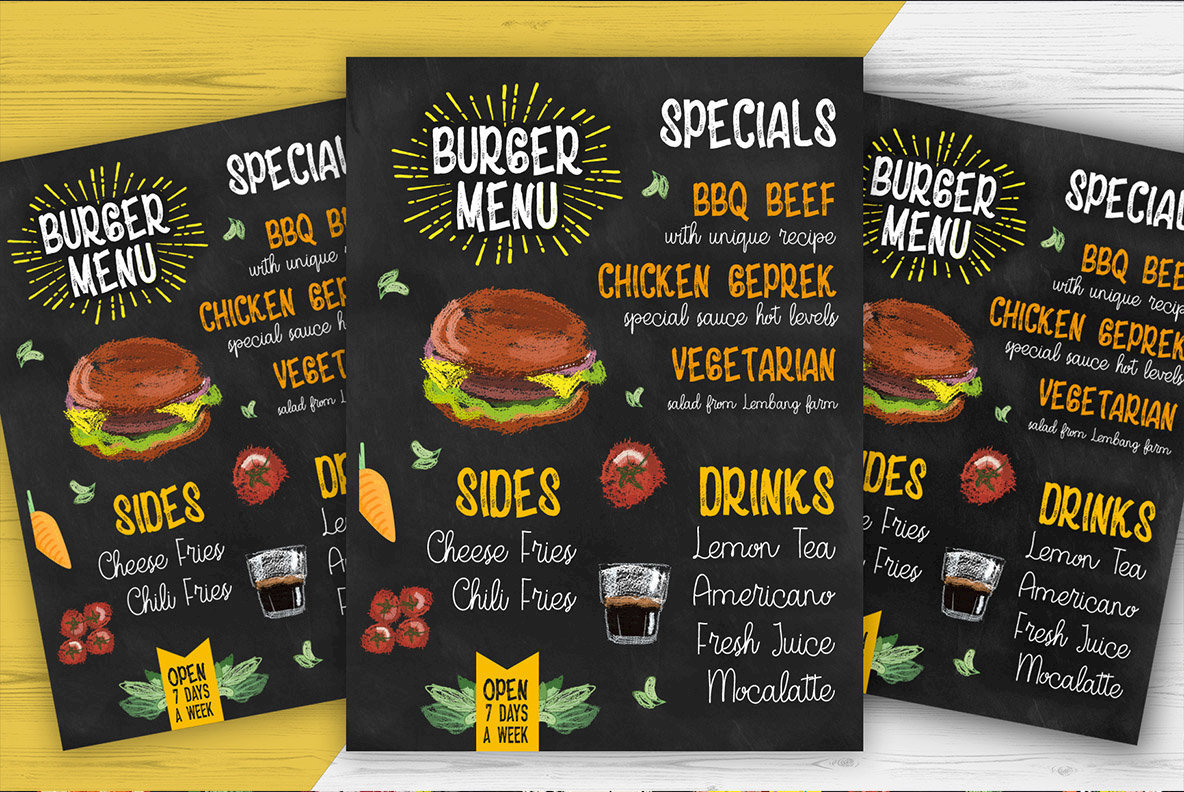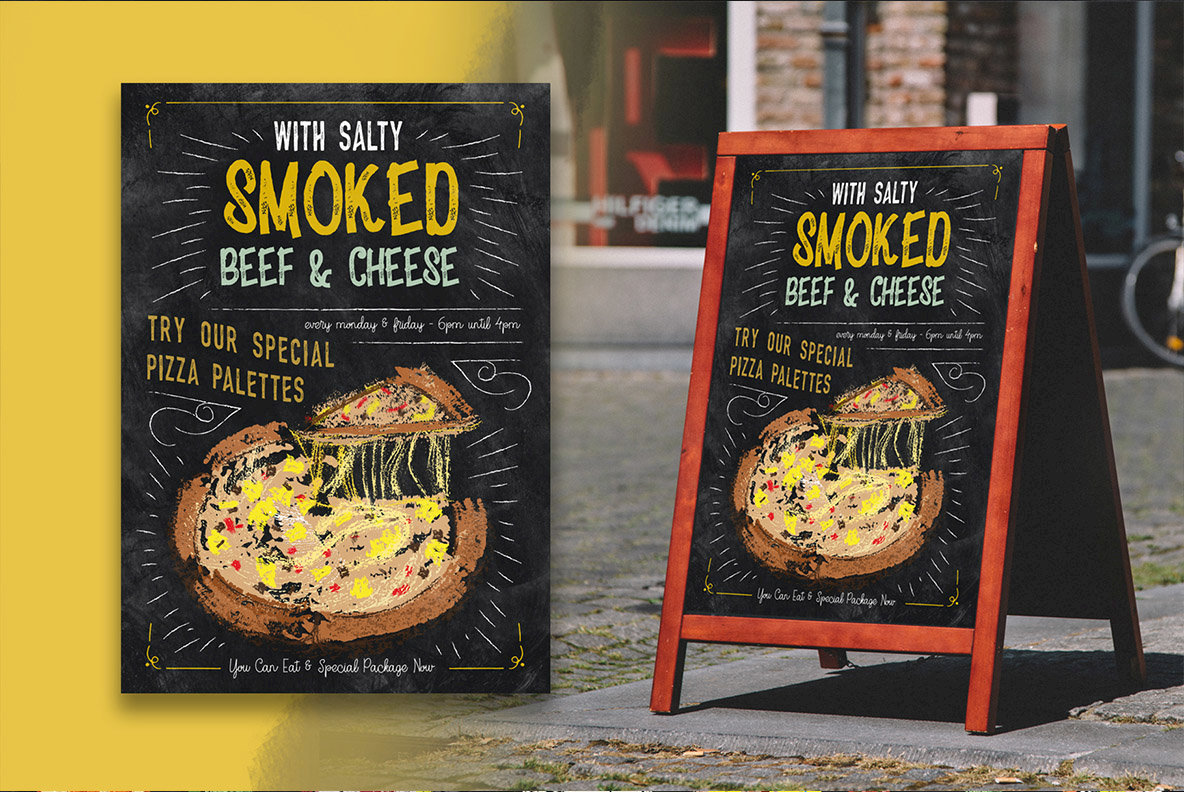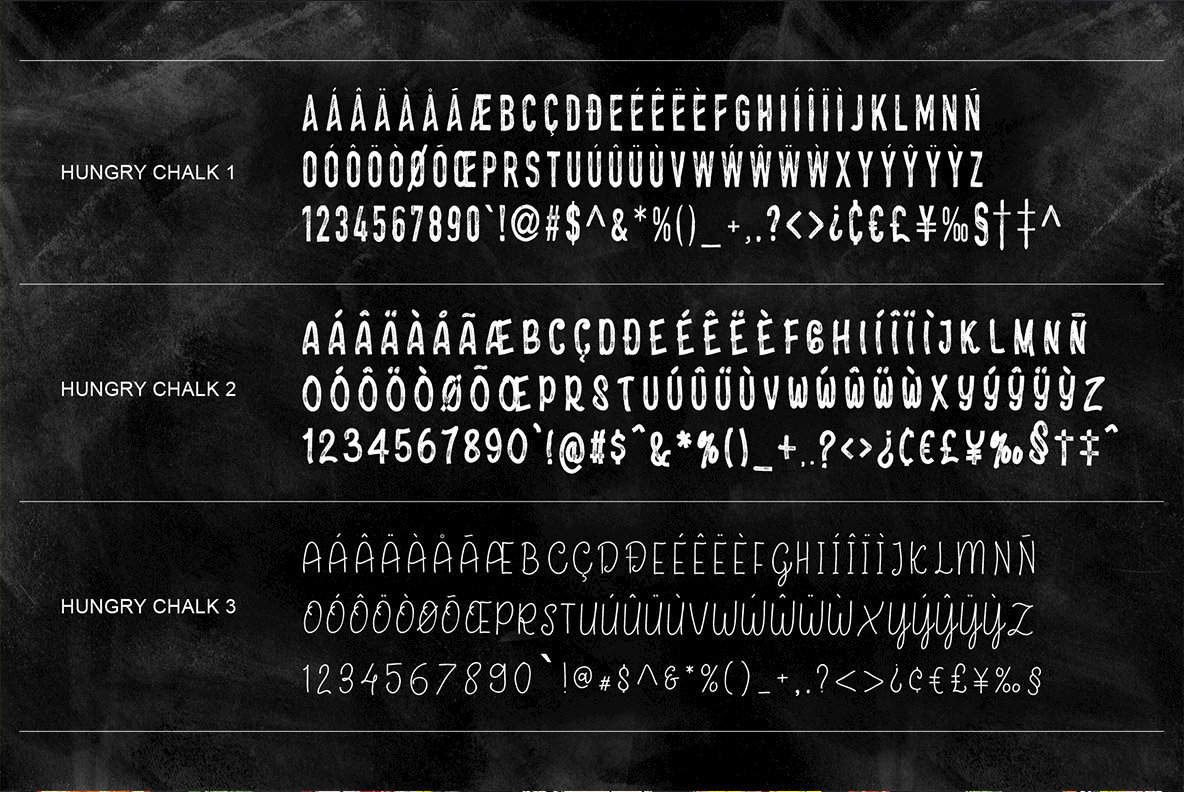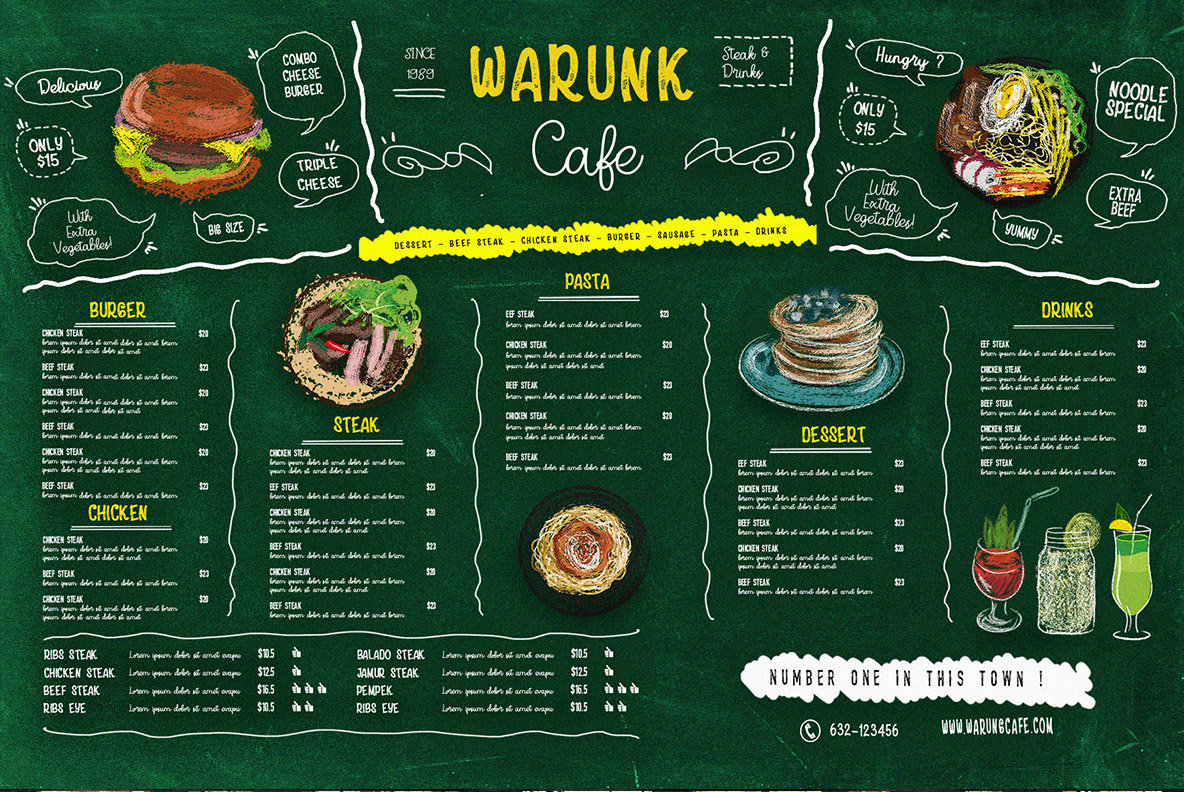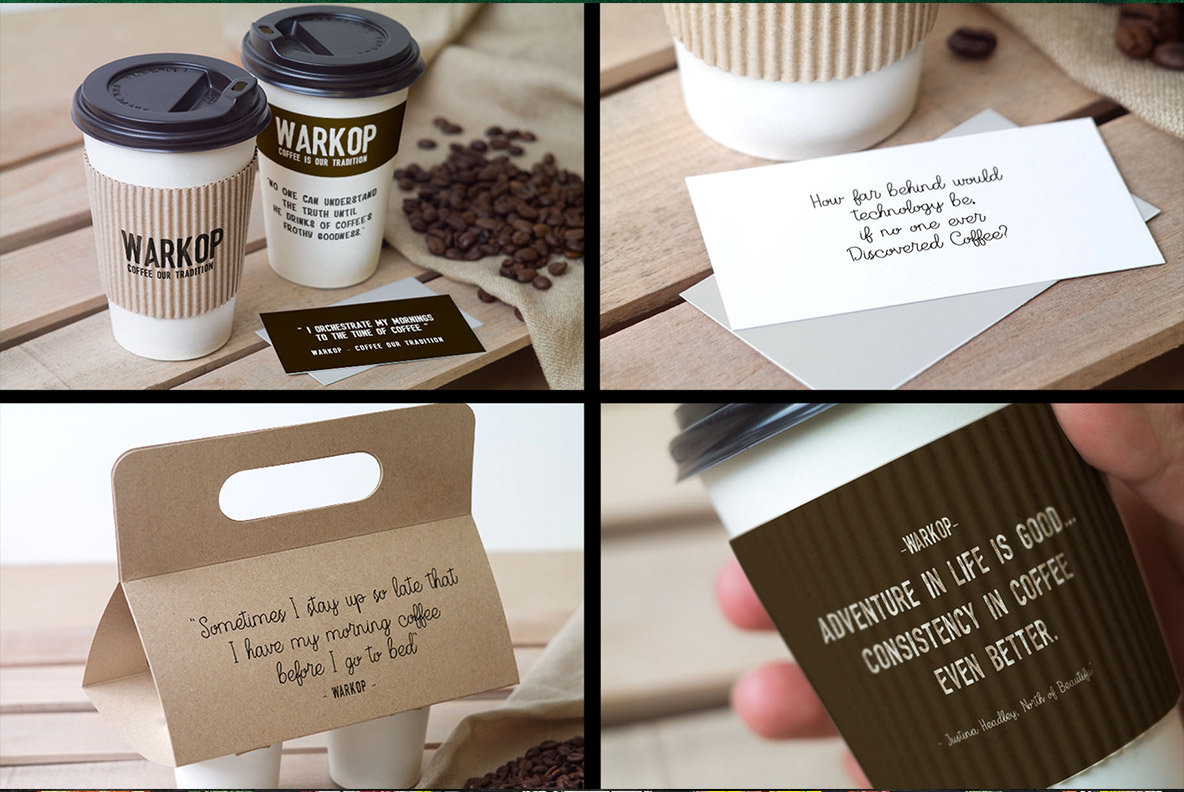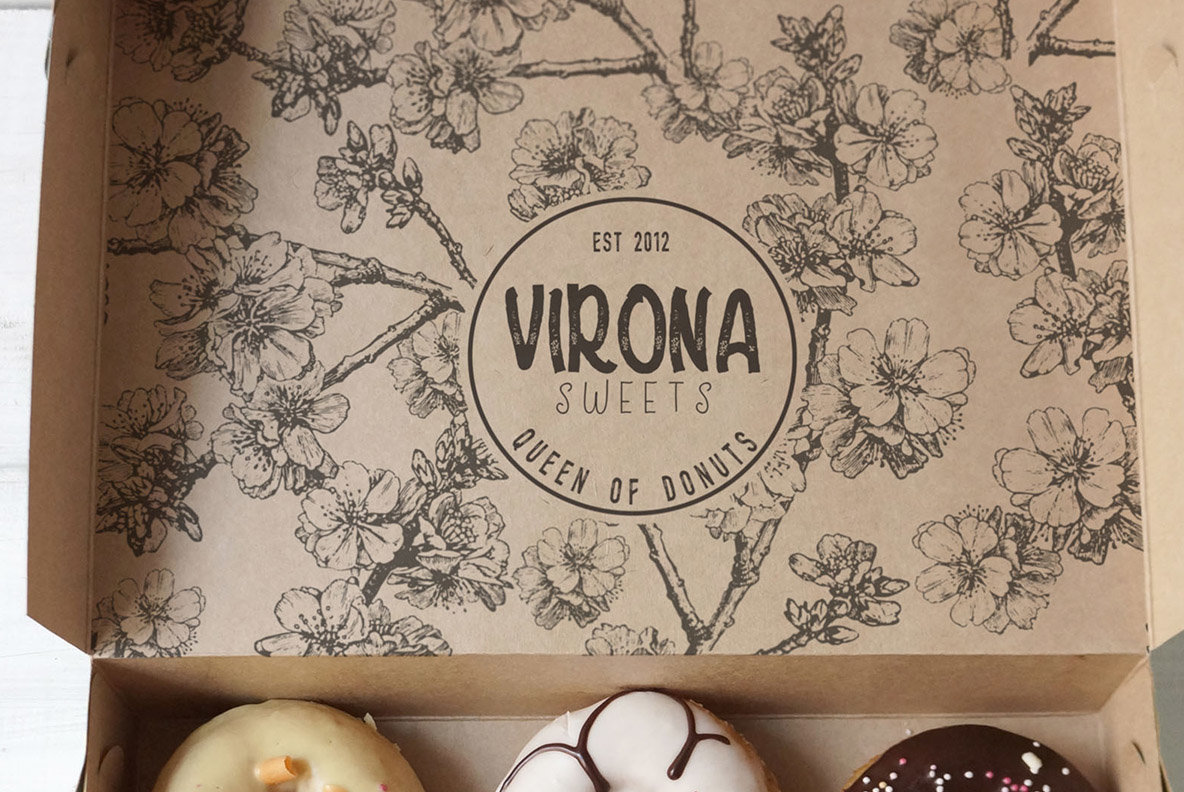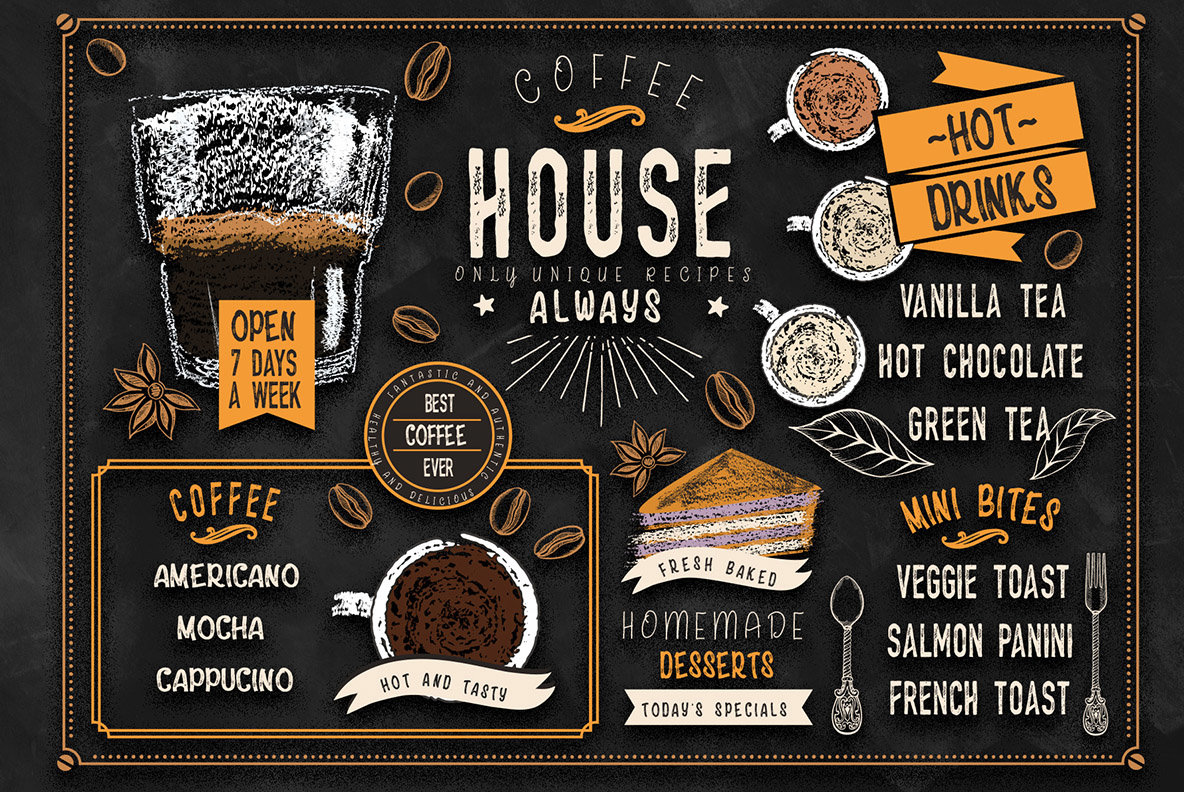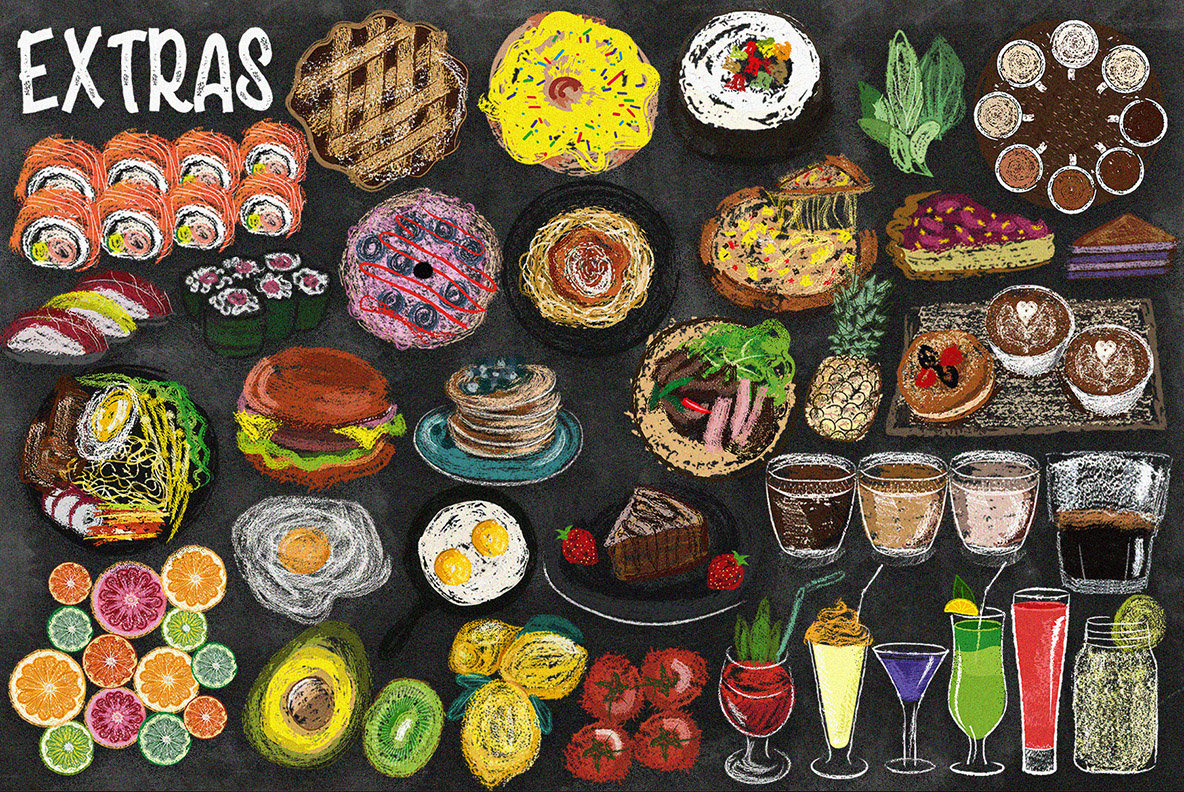
HungryChalk Typeface: A Handcrafted Charm for Cafés
HungryChalk Typeface draws its inspiration from the charming handwritten chalk lettering found on cafe menu boards. Designed specifically for cafes and restaurants, this typeface captures the essence of chalk in a digital format, ideal for creating compelling logos, eye-catching posters, and vibrant lettering projects. Its stylistic flair and added extras bring a touch of sophistication to any design.
• Handcrafted look inspired by cafe menus
• Perfect for chalk-themed design applications
• Includes stylistic extras for enhanced designs